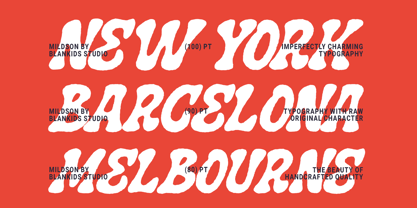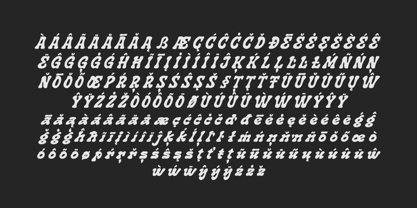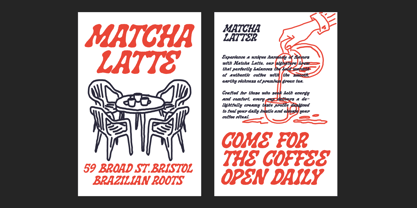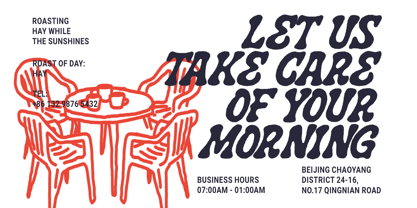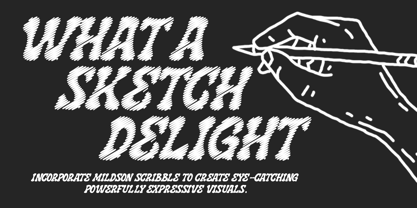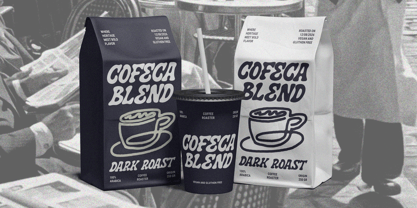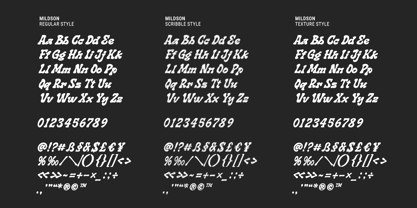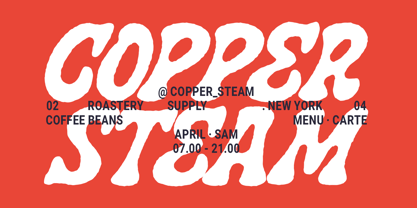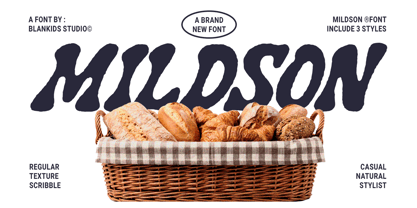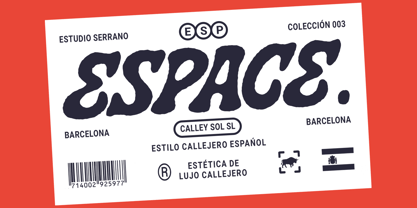
Mildson
by Blankids
The Mildson Font Family was designed by Bangkit Tri Setiadi and published by Blankids. Mildson contains 3 styles and family package options. More about this family
Mildson is a bold, experimental handmade display font designed to bring a raw, organic, and charismatic energy to your visual projects. Featuring fluid curves and a distinct hand-drawn aesthetic, it effortlessly balances playful motion with a confident, modern structure.
• 3 Distinct Styles: Includes Regular, Texture, and Scribble styles for versatile design applications.
• Aesthetic Vibe: Casual, Natural, and Stylist with an authentic, handcrafted feel.
• Ideal Applications: Perfect for bakery and coffee shop branding, product packaging, logos, apparel, posters, and editorial layouts.
• Full Character Set: Complete with uppercase & lowercase letters, numbers, punctuation, and multilingual support.